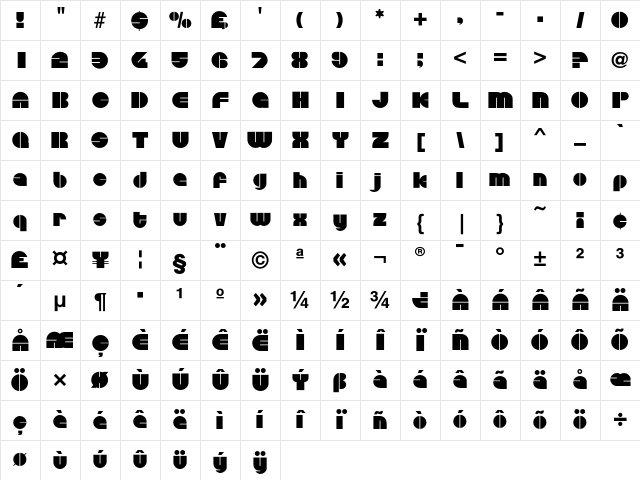
Disco Normal Free Font
Disco Normal
Disco Family
Disco Normal
Design Context for Disco
Disco is a composed and adaptable typeface that performs quietly and consistently across a wide range of design contexts.